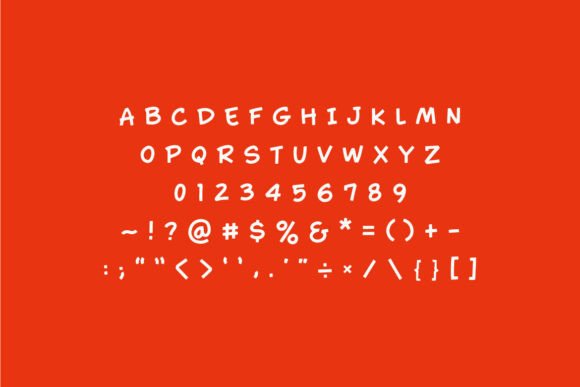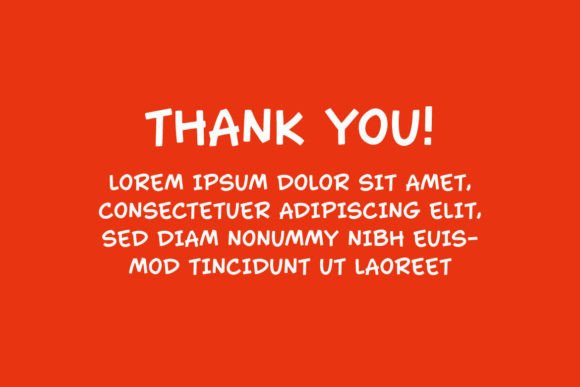
Introduction to Crush Go! Font Font
Fonts play a crucial role in design, and the Crush Go! Font font is a typeface that brings both character and versatility to any project. Whether you’re working on a branding project, a website, or a print design, the Crush Go! Font font offers a unique style that can elevate your work.
Crush Go.
is a cool and modern display font Masterfully designed to become a true favorite, this font has the potential to bring each of your creative ideas to the highest level.
Key Features of Crush Go! Font Font
Why Choose Crush Go! Font Font?
The Crush Go! Font font is more than just a typeface – it’s a design tool that helps you communicate your message with style and clarity. Its unique character set and versatile design make it suitable for a wide range of applications, from elegant invitations to bold headlines.
With its carefully crafted letterforms and balanced proportions, the Crush Go! Font font ensures readability and visual appeal across all mediums.
What makes Crush Go! Font font special?
The Crush Go! Font font stands out with its unique design, exceptional readability, and versatility across various design applications.